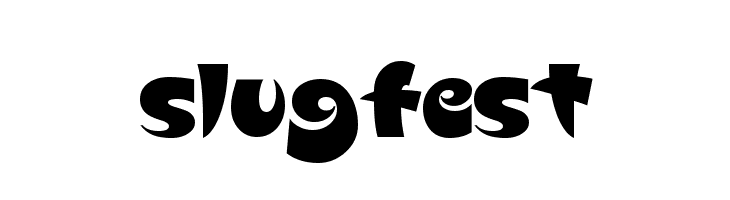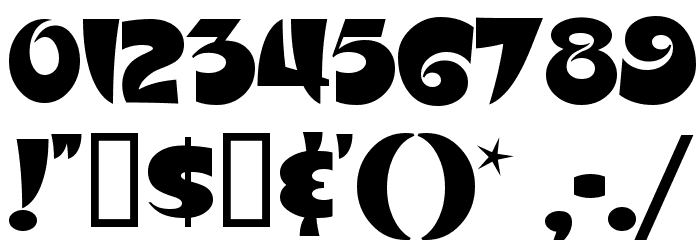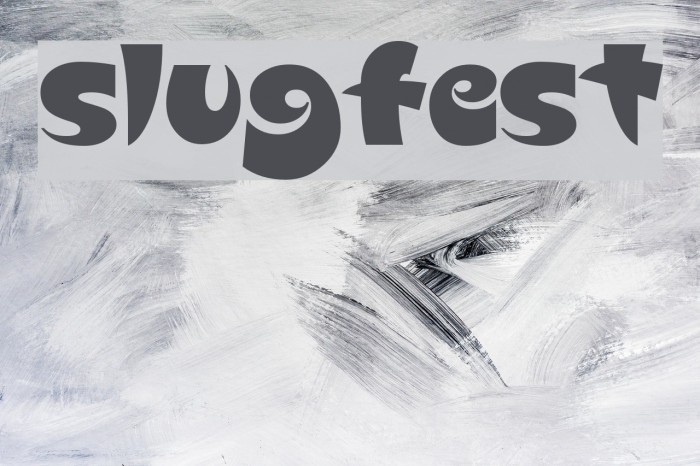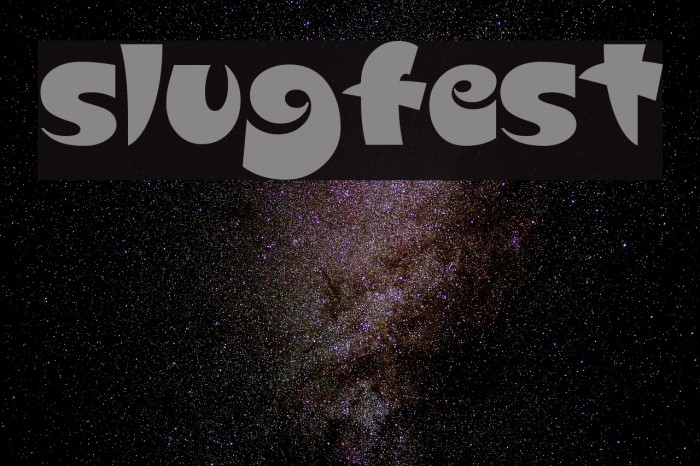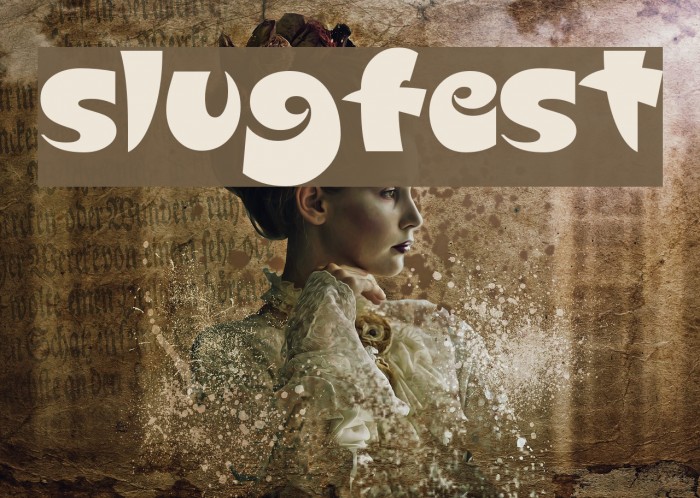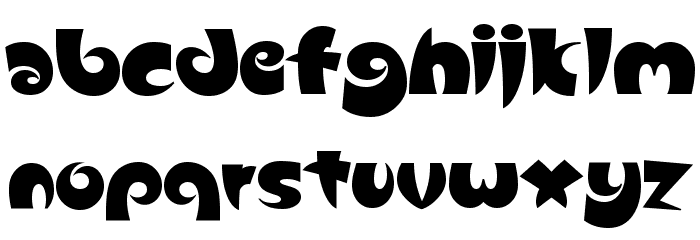
Slugfest Font
Slugfest Description
This font features bold, playful characters with a unique, rounded style that exudes a sense of fun and creativity. The letters are thick and have a whimsical, almost cartoonish appearance, making them stand out with their exaggerated curves and bold presence. The numbers and special characters follow the same playful design, ensuring consistency throughout. The font's distinctiveness lies in its ability to convey a lively and energetic vibe, perfect for projects that aim to capture attention and evoke a sense of joy.
A bold, playful font with rounded, whimsical characters from Round fonts.
- Proposed Projects: Ideal for children's books, playful branding, event posters, and creative packaging.
- Overall Style: Playful, Creative